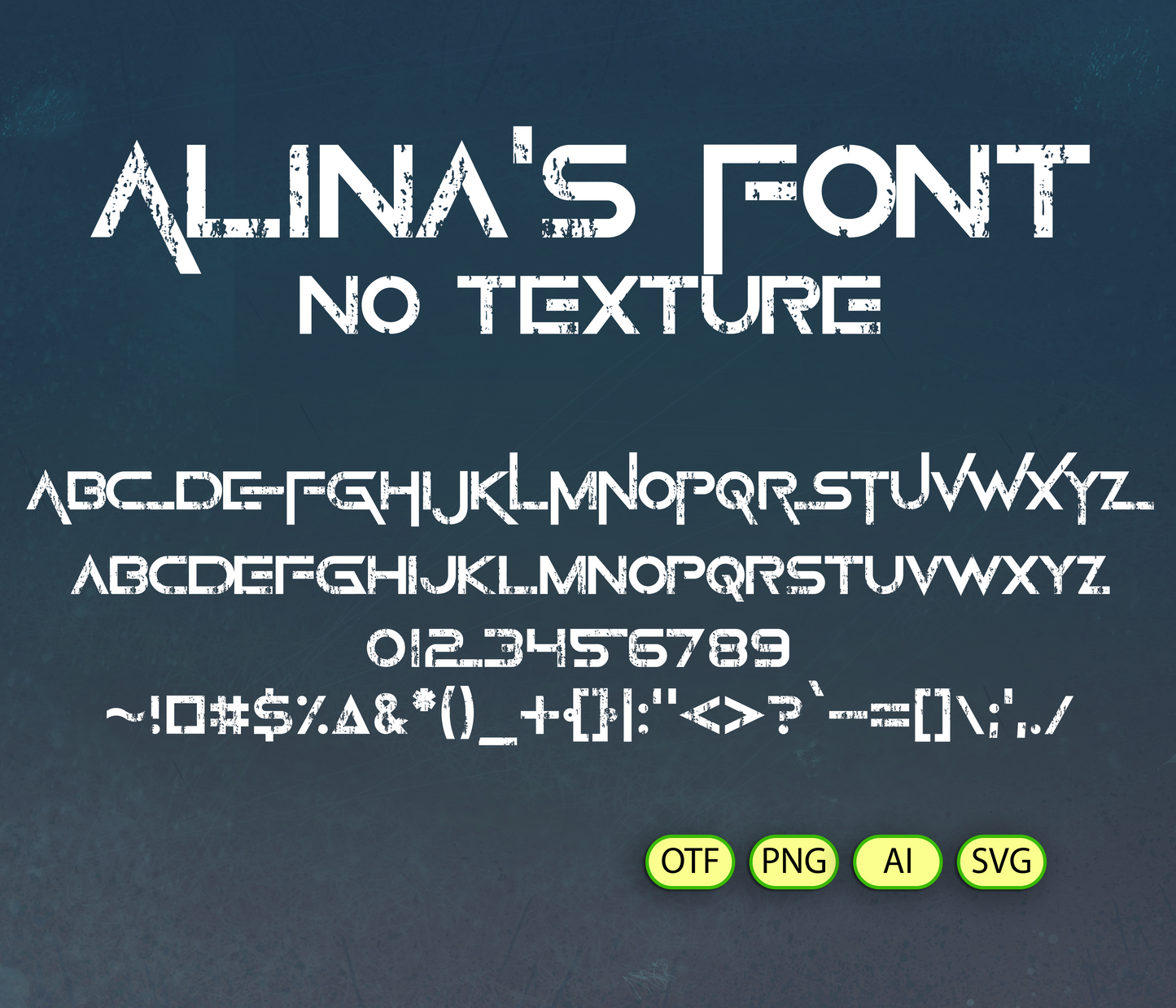
Survival Arena Competition Game Font
Survival Arena Font Competition Game
Step into the intense world of high-stakes competition with our Survival Arena font, capturing the essence of psychological thrillers and strategic gameplay. Perfect for gaming events, escape room designers, thriller content creators, and creative professionals, this font brings the tense, dramatic spirit of life-or-death games to your projects. Create gripping invitations, competition-themed merchandise, or digital content with the bold, suspenseful energy of ultimate survival contests.
Our Survival Arena font features stark, geometric shapes and bold characters reflecting the minimalist yet menacing aesthetic of competitive survival scenarios. Ideal for:
- Gaming Events: Create attention-grabbing invites, posters, and banners for tournament nights, escape room experiences, and competition-themed gatherings
- Thriller Design: Perfect for book covers, movie promotions, and mystery-themed party accessories that capture psychological tension
- Digital Media: Enhance websites, blogs, and social media with dramatic headers and graphics that express intensity and strategic thinking
- Entertainment Content: Add authentic character to gaming materials, puzzle designs, and promotional materials for competitive events
- Personal Projects: Bring competitive edge to scrapbooking, DIY crafts, and home decor inspired by the aesthetics of strategic challenges